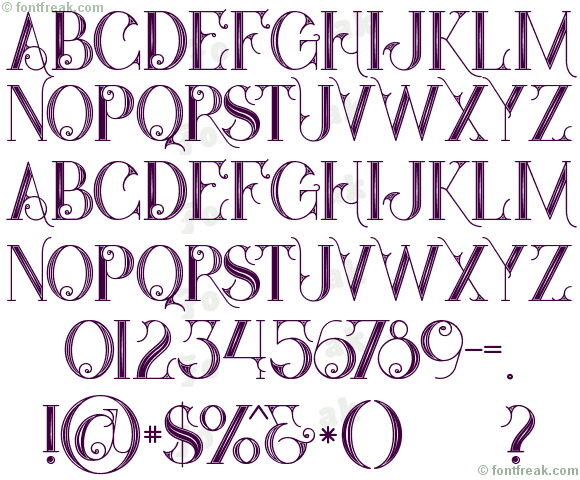
Star Black Inline
The Star Black Inline font, created by Peter Olexa, embodies a unique decorative style that captivates with its playful yet elegant design. As a display typeface, it features bold strokes and distinctive inline elements that add depth and character to any text. The font exhibits a combination of thick and thin contrasts, giving it a striking visual appeal. Its ornate details, including swirls and curlicues, enhance its decorative nature, making it perfect for a variety of creative applications.
Star Black Inline is particularly suited for use in wedding invitations, where its charming design can bring a touch of romance to the occasion. It also shines in movie posters, offering a dramatic flair that captures attention and conveys the essence of the film. For restaurant menus, this font can elevate the presentation of the dishes, creating a memorable dining experience. Additionally, small business branding can greatly benefit from this font, as it helps create an inviting and distinctive visual identity.
What sets Star Black Inline apart is its ability to blend boldness with elegance, making it a standout choice for any creative endeavor. The font's unique character and versatility ensure that it not only captures attention but also elevates the overall aesthetic of any design. For those seeking to make a statement, the Star Black Inline font free download is an invaluable resource that opens the door to endless creative possibilities.